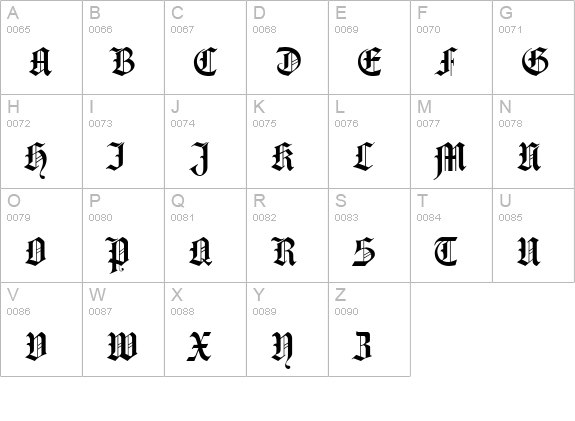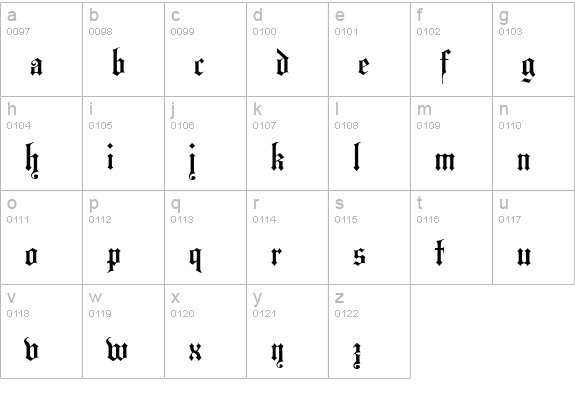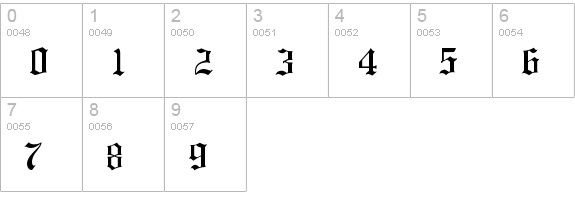
HansaGotisch is a remarkable font that effortlessly captures the essence of Gothic lettering. With its elegant and intricate design, this font is perfect for adding a touch of old-world charm to any project. The tall and slender letterforms exude a sense of grandeur and sophistication, making it ideal for headlines, logos, invitations, and much more. What sets HansaGotisch apart is not just its stunning aesthetics but also the fact that it is completely free to use. You read that right - this font is freely available to download at FontsMarket.com. Now you can add a unique and timeless touch to your designs without breaking the bank. Whether you're designing a vintage-inspired poster, creating a Gothic-themed website, or crafting a captivating book cover, HansaGotisch will elevate your work to new heights. Its versatility allows it to seamlessly blend with various design styles, from classic to modern, ensuring that your creations stand out from the crowd. The attention to detail in this font is truly astonishing. Each character is meticulously crafted to maintain a harmonious balance between the bold strokes and delicate flourishes. The result is a visually striking typeface that commands attention and evokes a sense of mystery and intrigue. Download HansaGotisch today from FontsMarket.com and unleash your creativity. With this font in your arsenal, you have the power to create stunning designs that leave a lasting impression. So go ahead, embrace the beauty of Gothic lettering and let HansaGotisch be your guide on a journey through time.